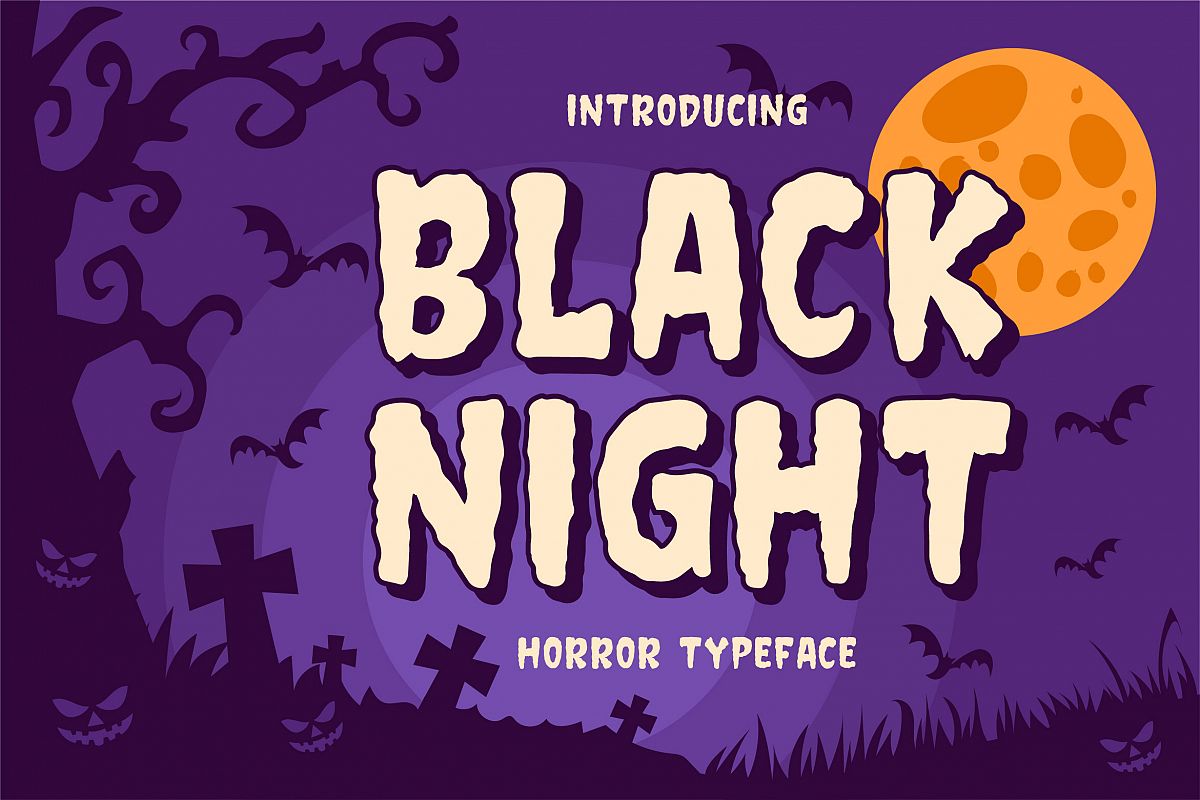
Black Night - Horror Typeface
Introducing of our new product the name is Black night Horror Typeface. Black night good for helloween poster, horror poster, childrenbook, cartoon, comic etc